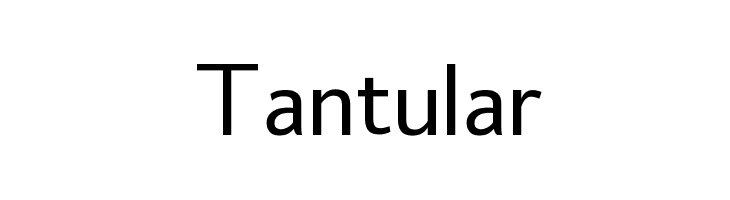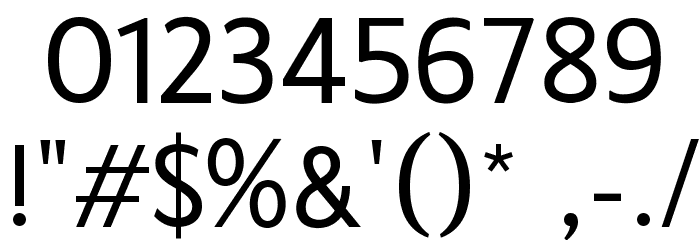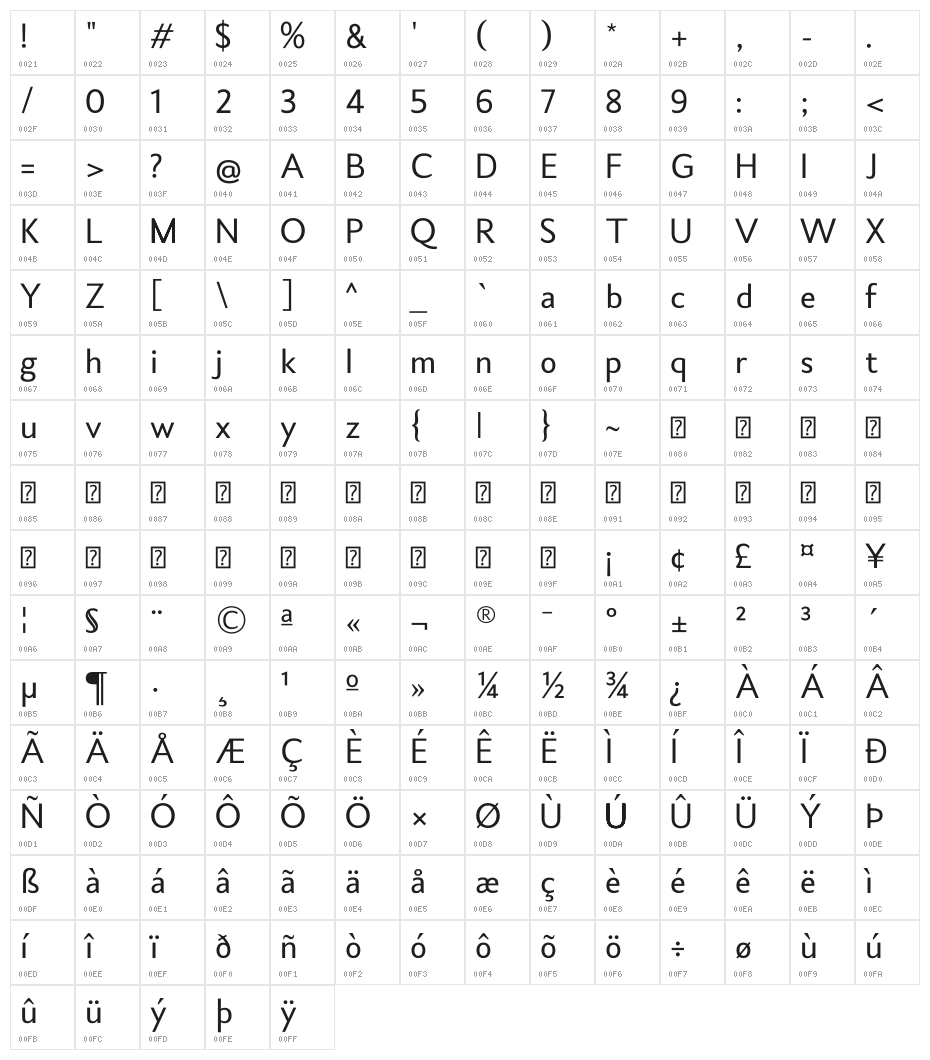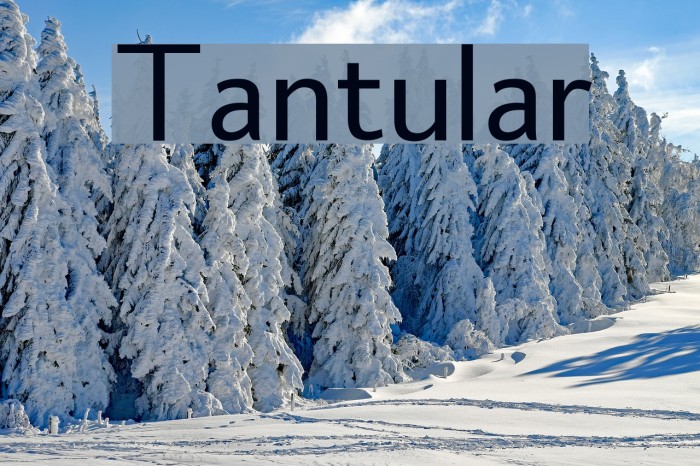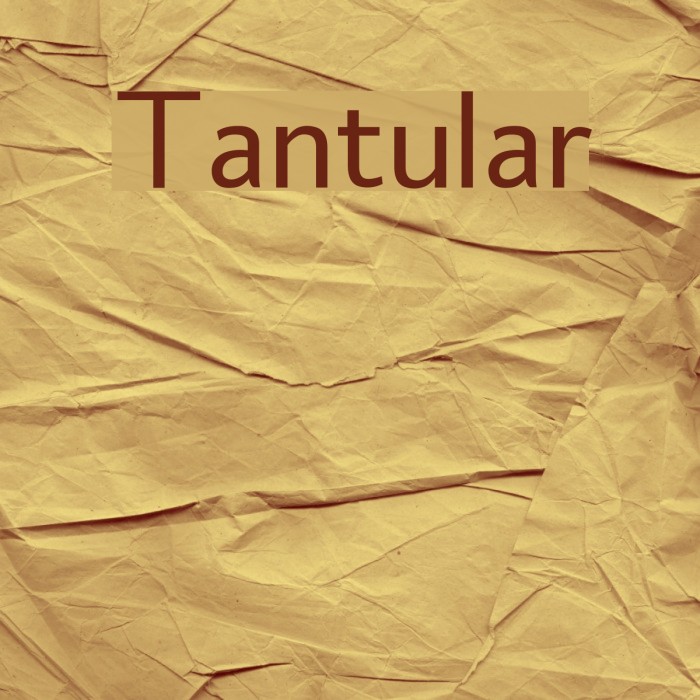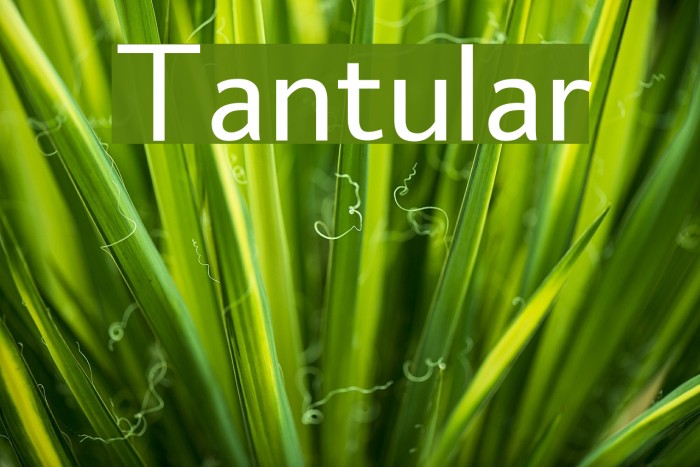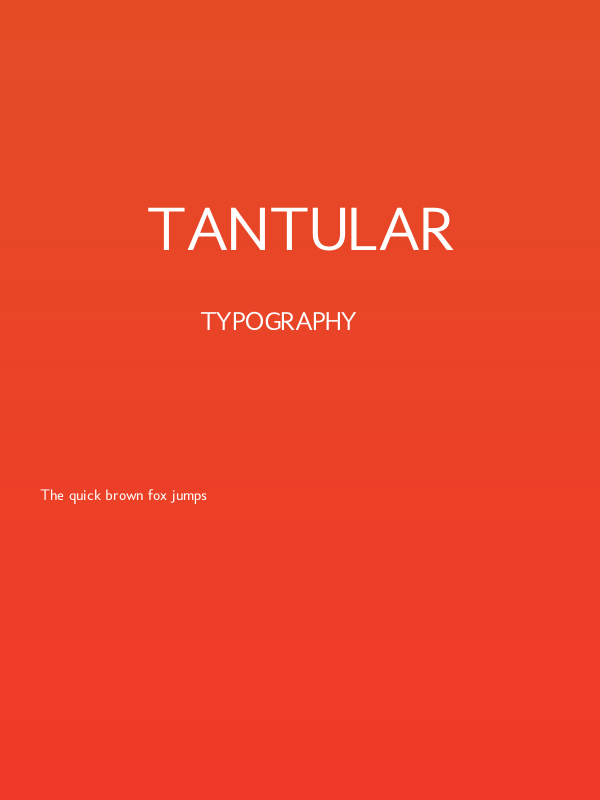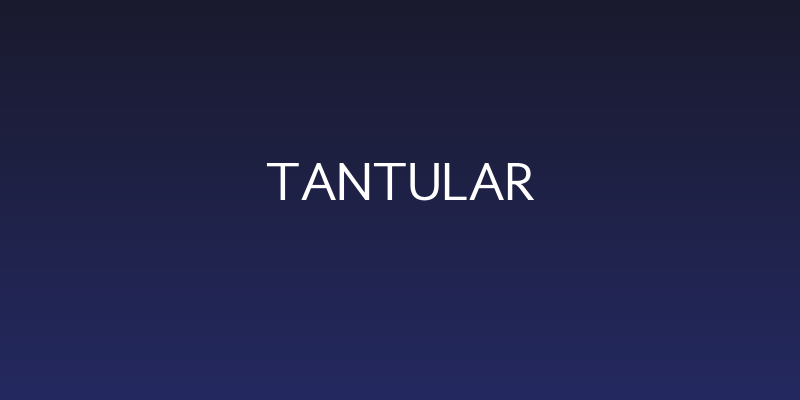
Tantular Font
Tantular Description
This font presents a clean and modern sans-serif style, characterized by its simplicity and readability. The characters are well-proportioned with a consistent stroke width, contributing to a balanced and harmonious appearance. The uppercase letters are bold and commanding, while the lowercase letters maintain a friendly and approachable feel. The numerals are clear and distinct, ensuring easy readability. Special characters are designed with precision, maintaining the overall aesthetic of the font. This font is versatile, suitable for both digital and print media, and can be used effectively in various design contexts.